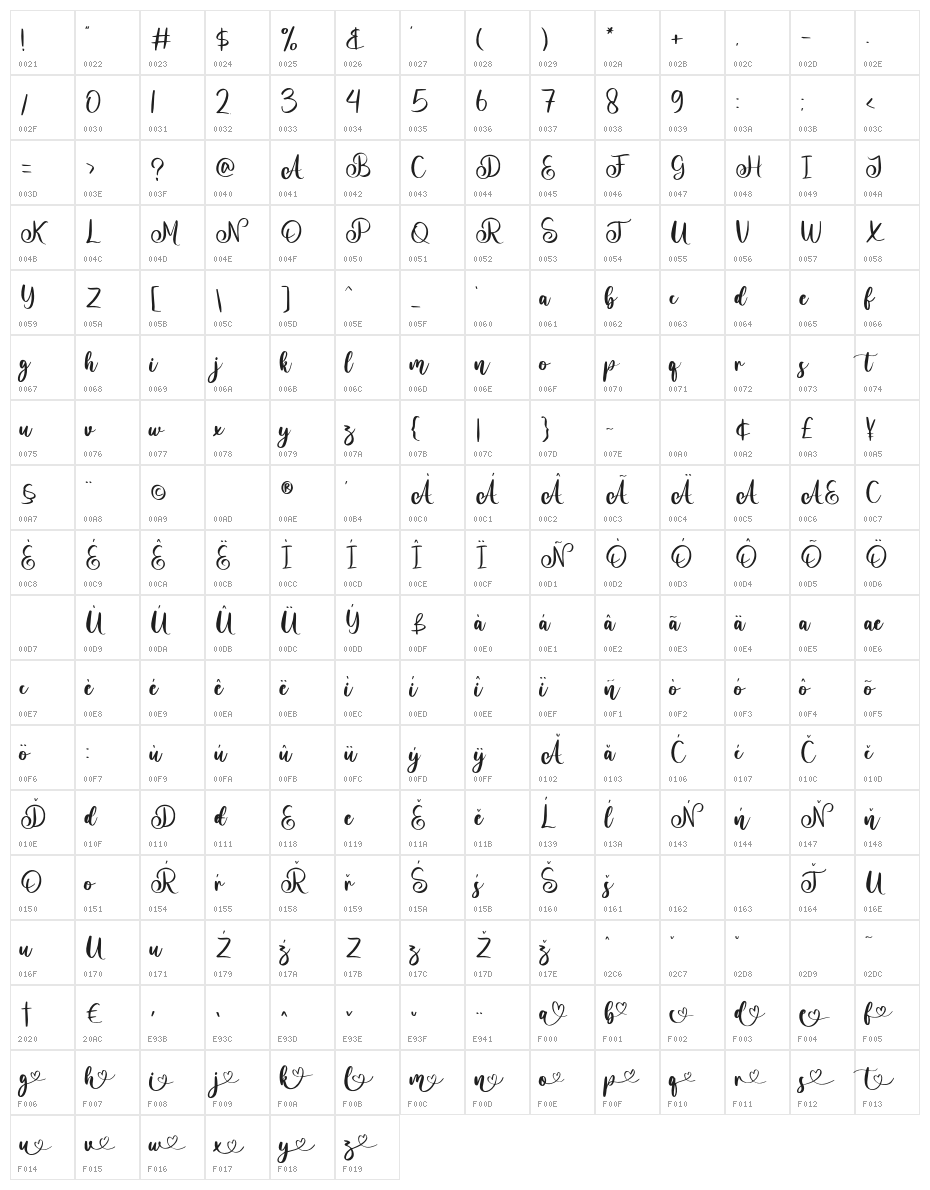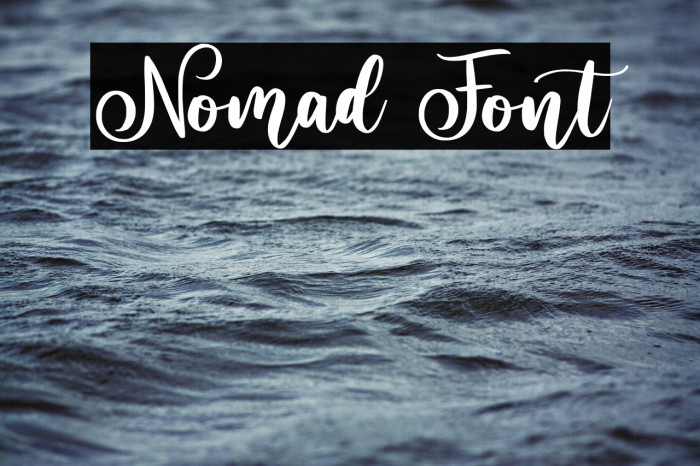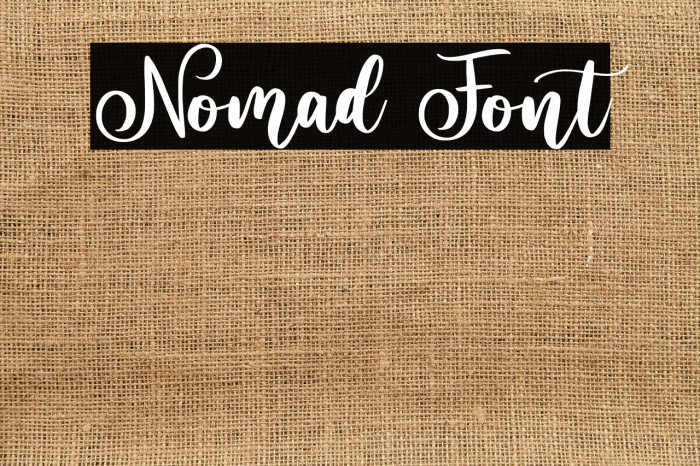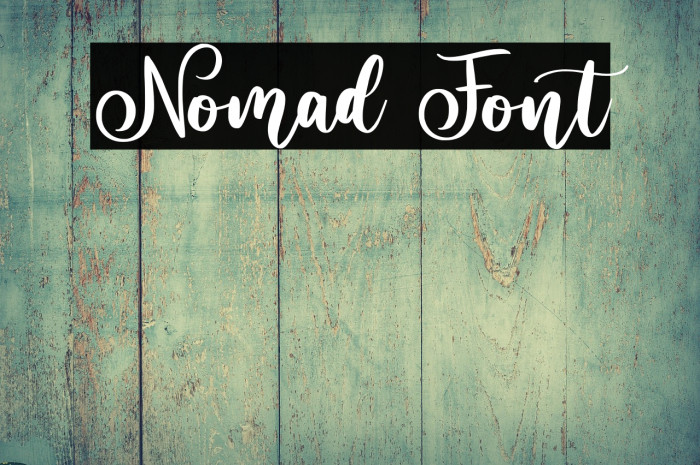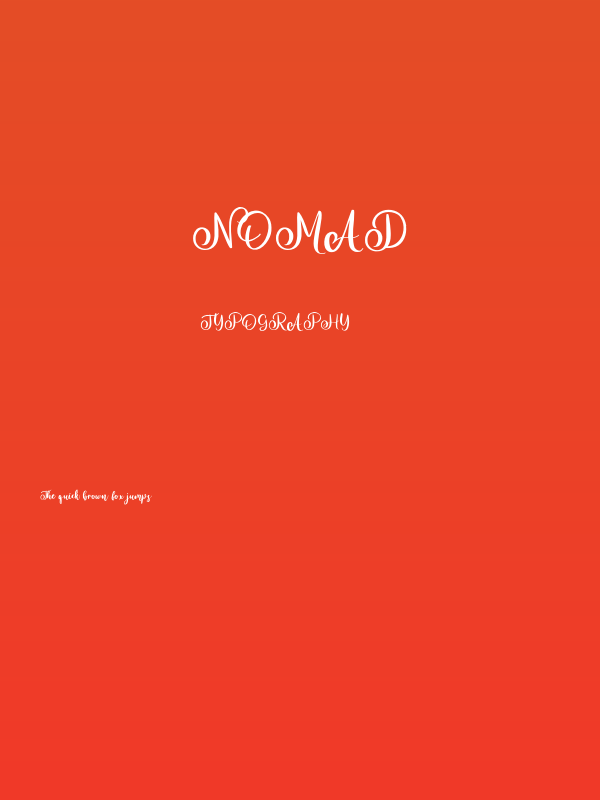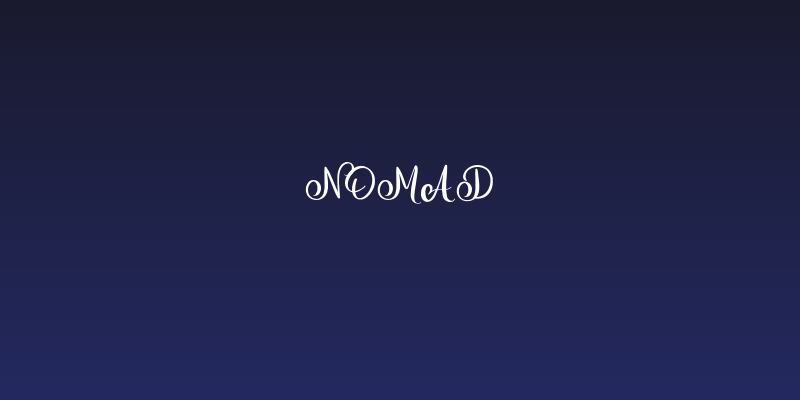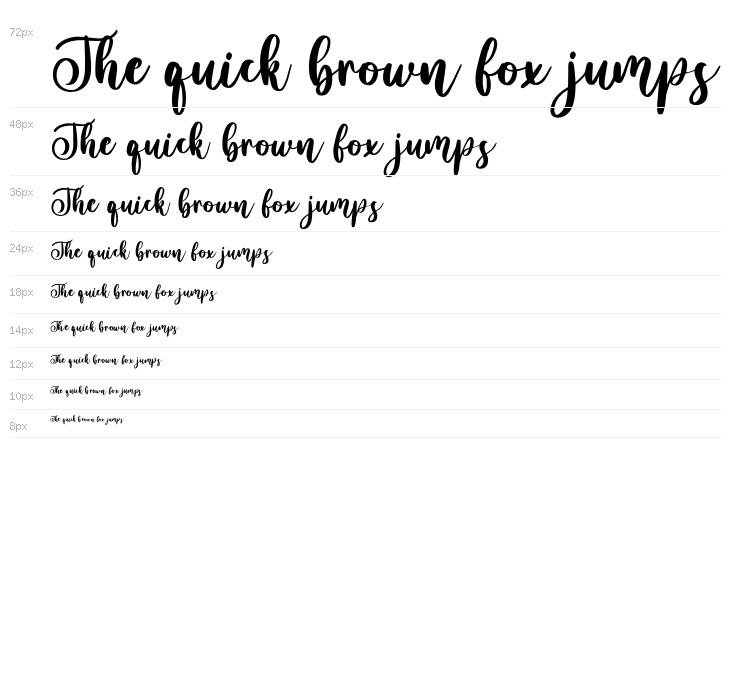
Nomad Font
Nomad Description
This font features a playful and elegant script style with a handwritten feel. The uppercase letters are characterized by smooth, flowing curves and a slight slant, giving them a dynamic and lively appearance. The lowercase letters maintain a consistent style, with loops and swashes that enhance the font's decorative nature. The numerals are bold and slightly rounded, complementing the overall aesthetic. Special characters are thoughtfully designed to match the script's fluidity. This font exudes a sense of creativity and warmth, making it suitable for a variety of design projects.
Use CaseLogos, Invitations, Social Media
Proposed ProjectsIdeal for wedding invitations, greeting cards, branding, and social media graphics.